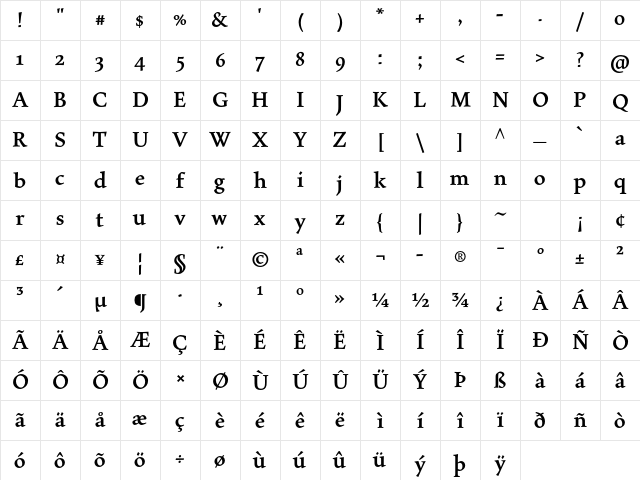
Complete MaiolaPro Bold glyph index. Displaying only characters natively supported by MaiolaPro Bold font.
MaiolaPro is a composed and adaptable typeface that performs quietly and consistently across a wide range of design contexts. Its bold stroke weight gives it real presence on the page.